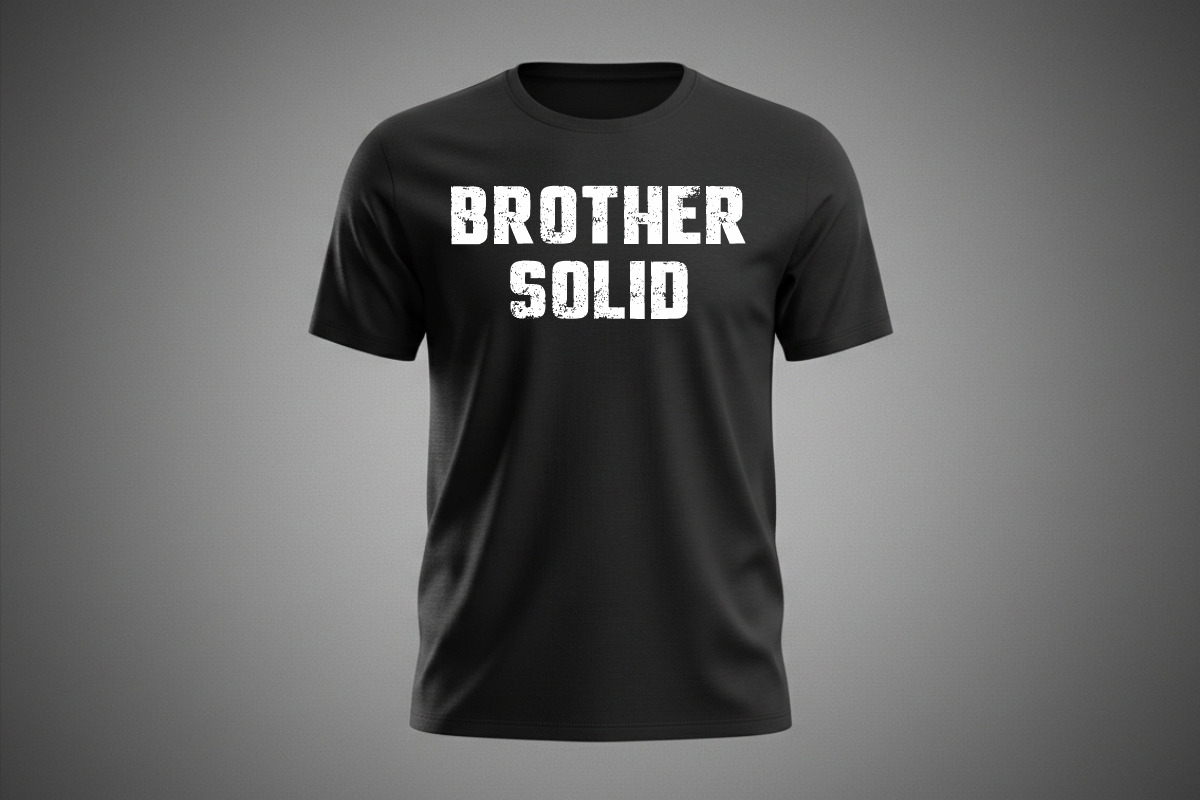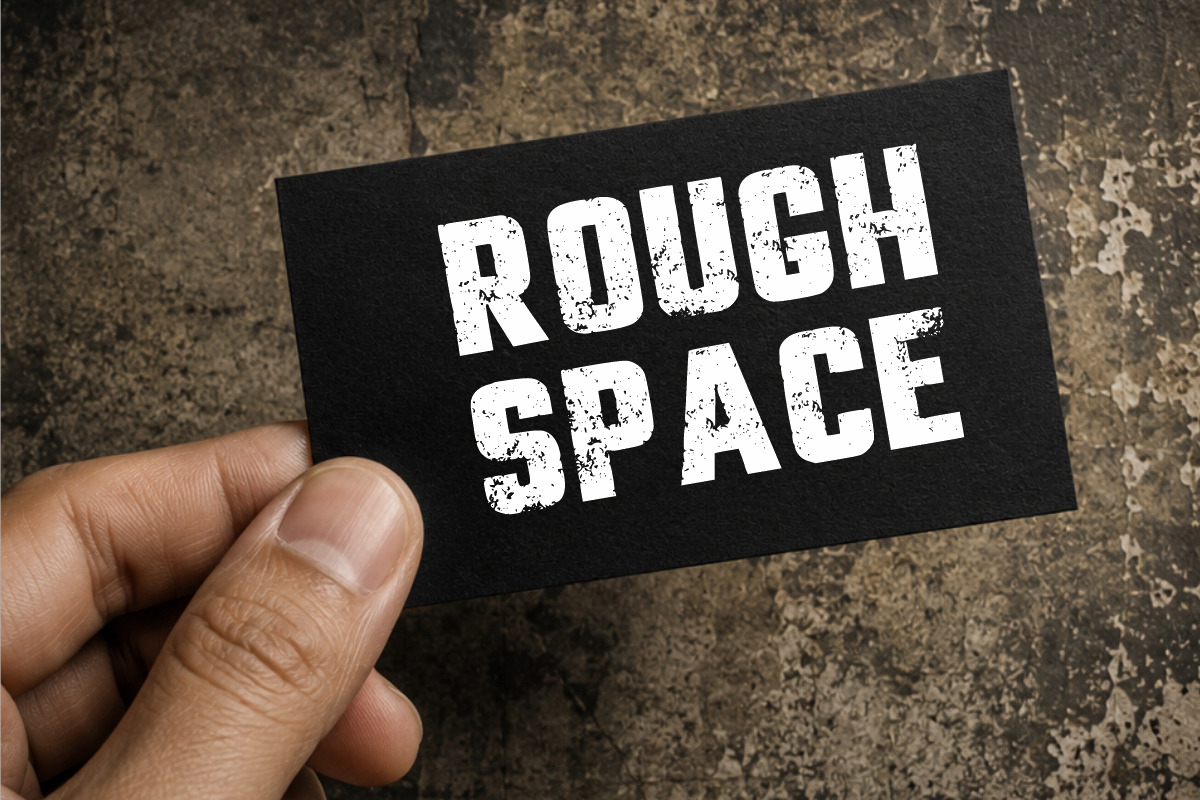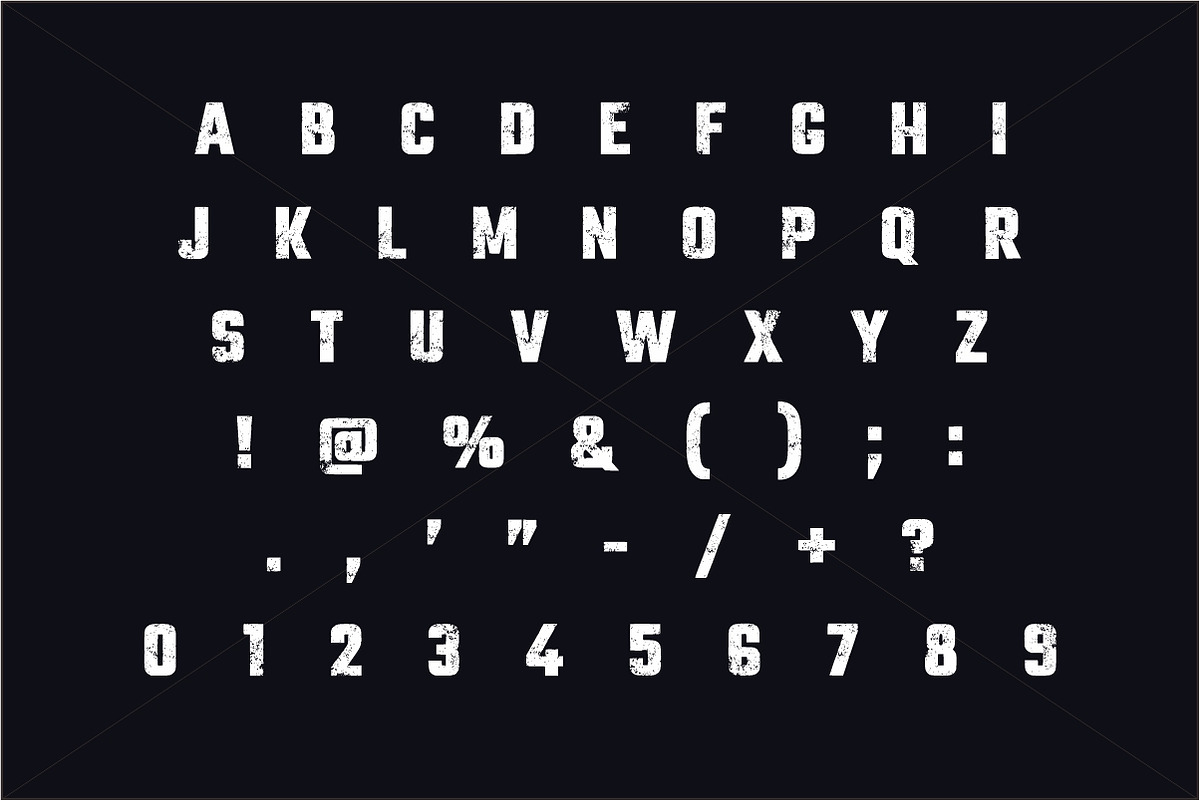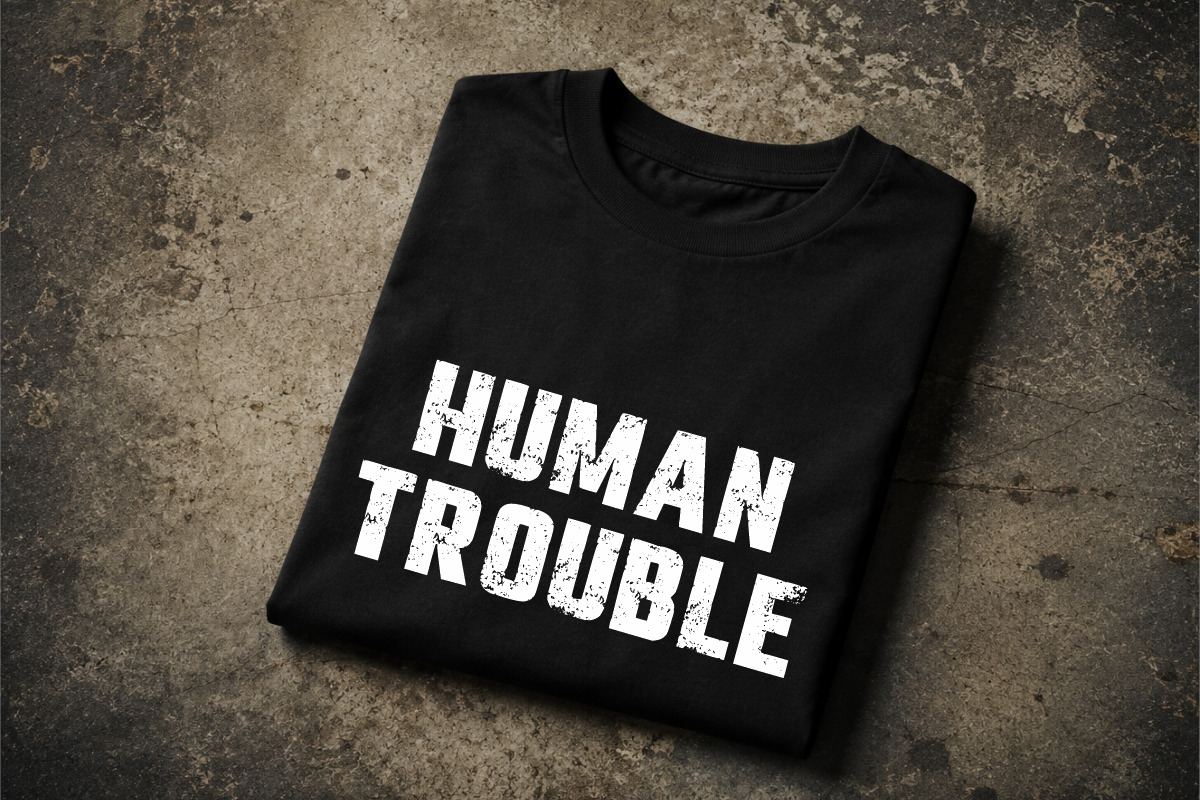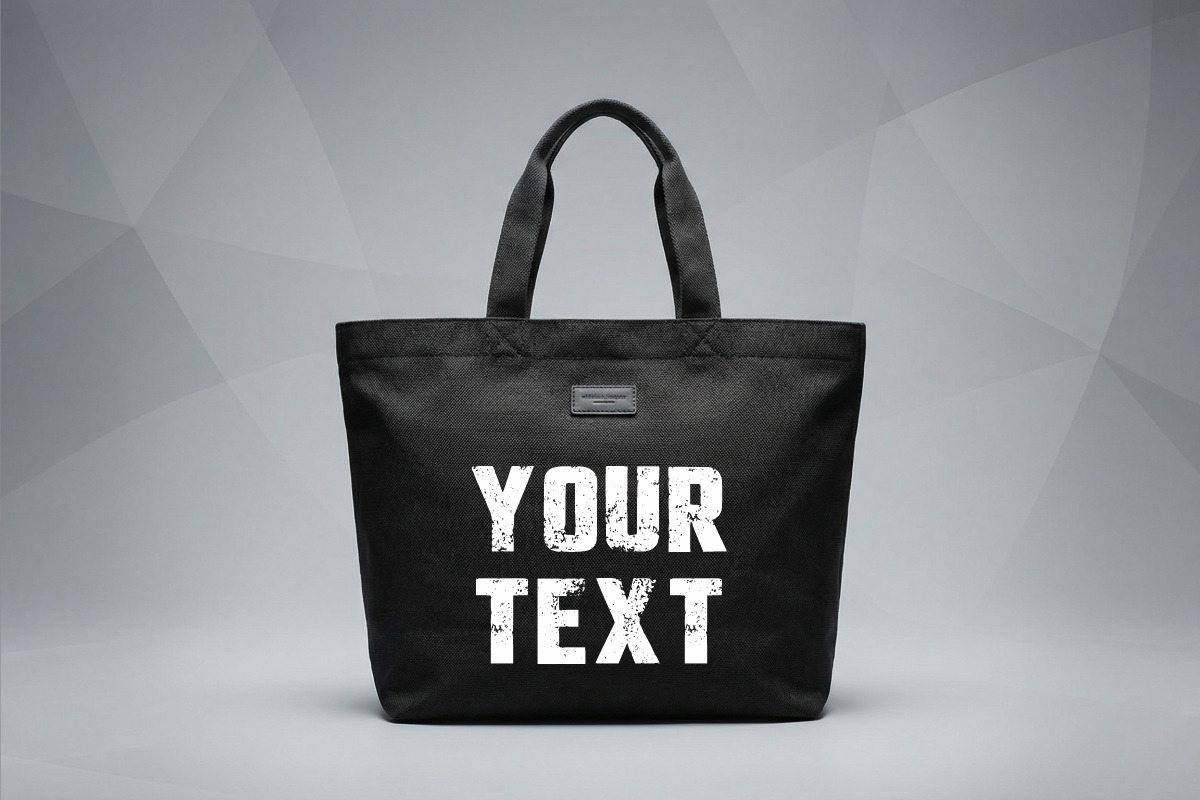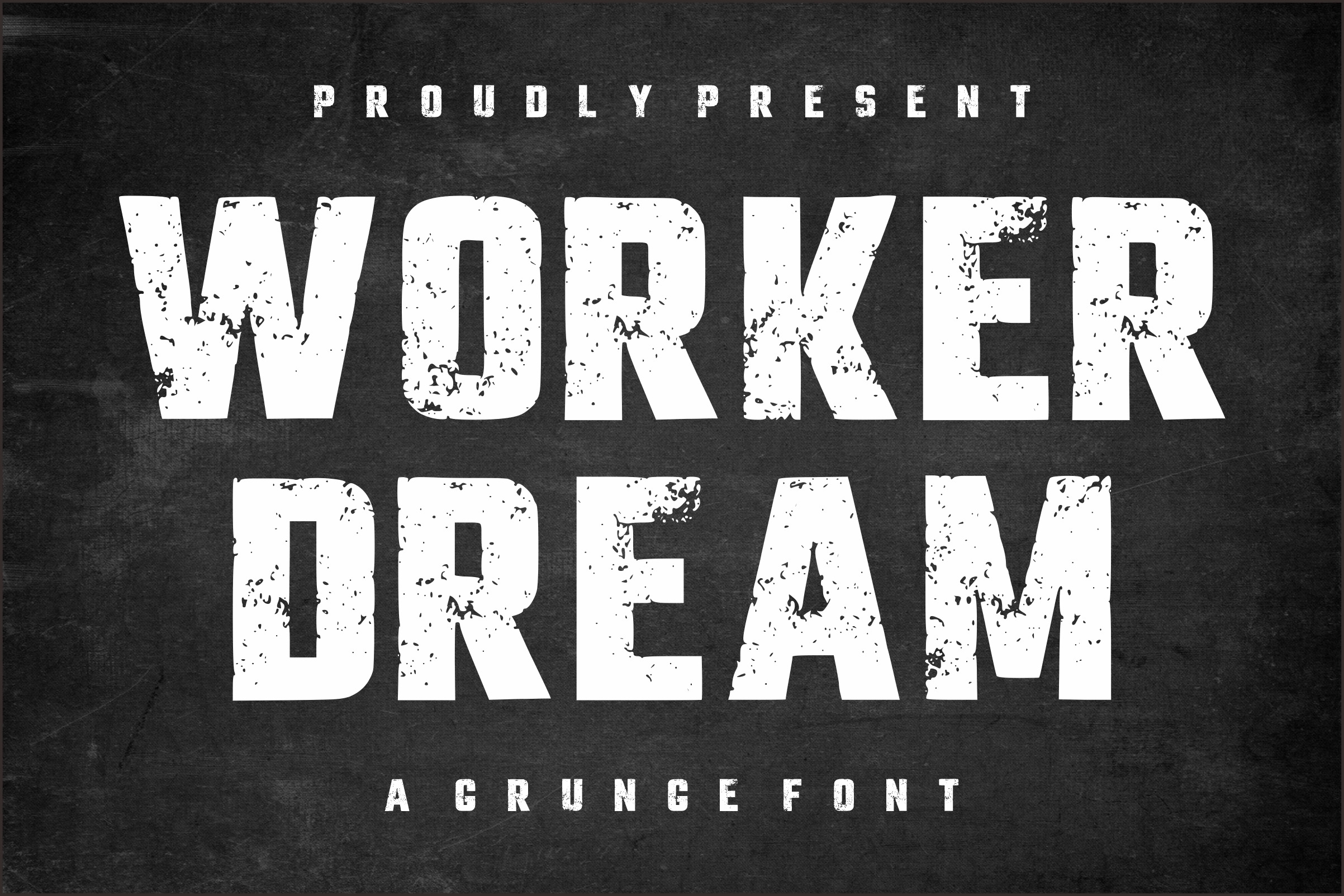
Worker Dream Grunge Font
Worker Dream is a bold and powerful grunge display font inspired by industrial textures and rugged work aesthetics. Featuring heavy letterforms with authentic distressed details, this font is perfect for designs that need a strong, raw, and vintage feel.
Ideal for posters, apparel designs, branding, logos, headlines, and any project that calls for a tough, worn, and impactful look. Worker Dream brings an urban, masculine, and hardworking character to your typography.
Key Features: – Uppercase letters – Numbers & punctuation – Strong distressed/grunge texture – Bold and impactful style – Easy to read for headlines